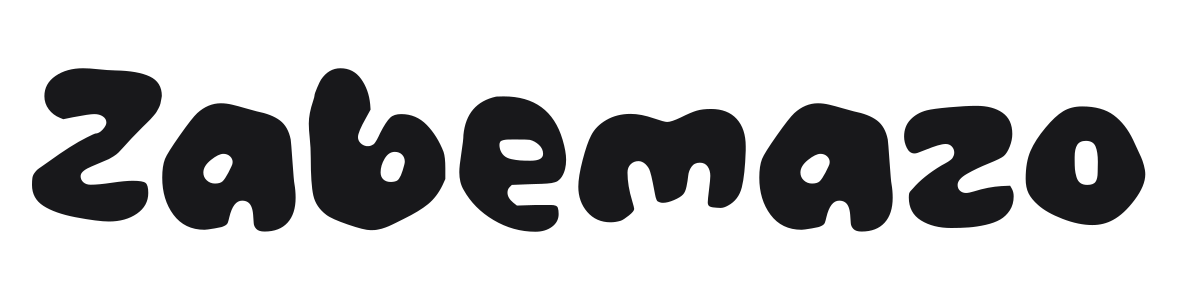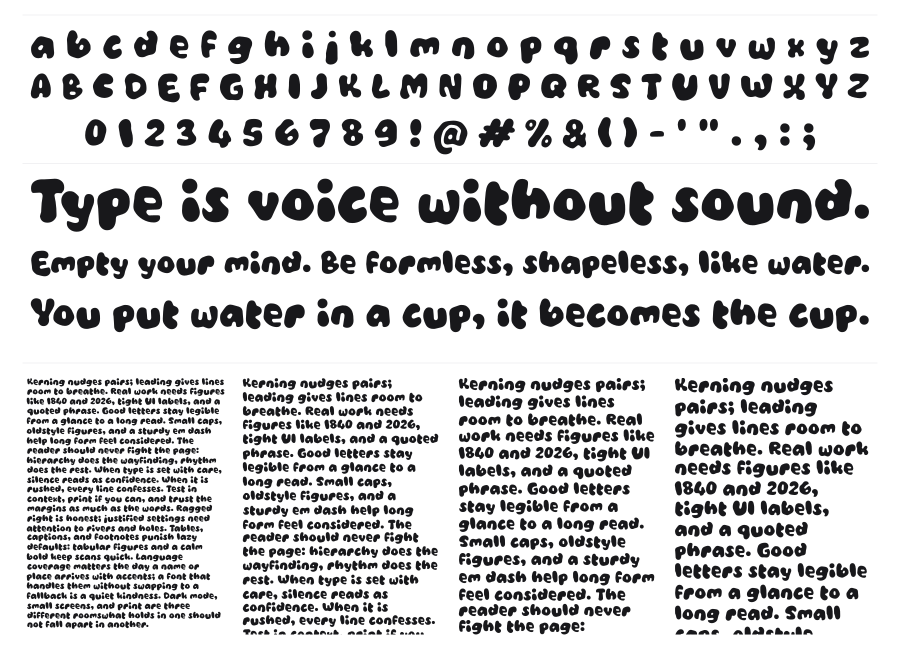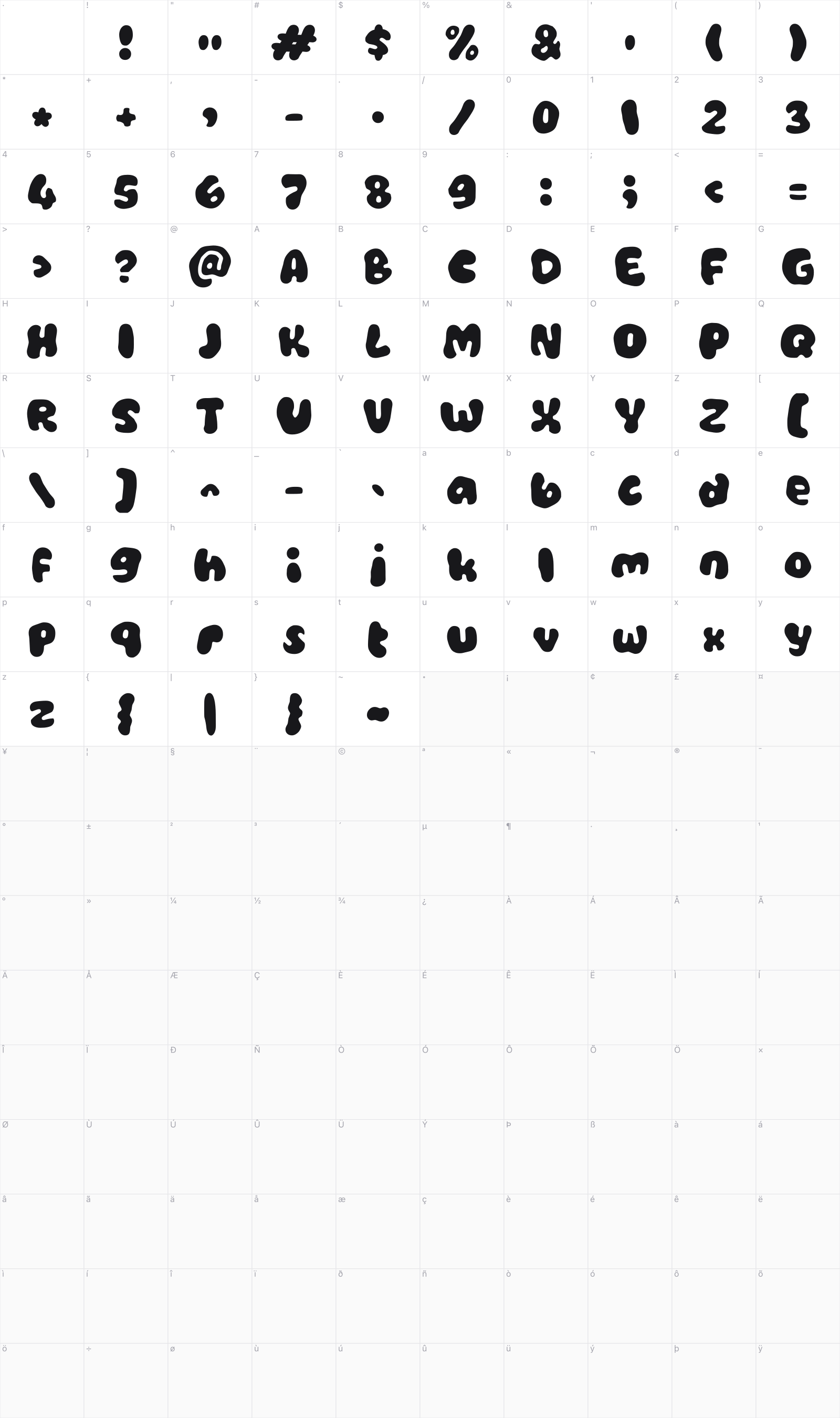
Zabemazo
Zabemazo is a heavy bubble-rounded sans with inflated, near-circular characters and extreme softness throughout. Every stroke bulges with a balloon-like fullness, and the tight apertures reinforce the sense of cheerful exuberance. It carries a clear 1970s groovy energy that works hard at large sizes for fun, casual branding.